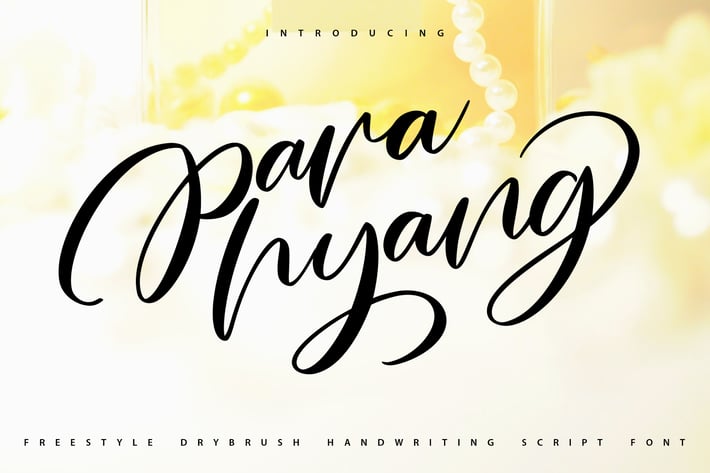
Parahyang | Freestyle Handwriting Scipt Font
Parahyang | Freestyle Handwriting Scipt Font with a calligraphy style, So beautiful on invitation like greeting cards, branding materials, business cards, quotes, posters, and more!